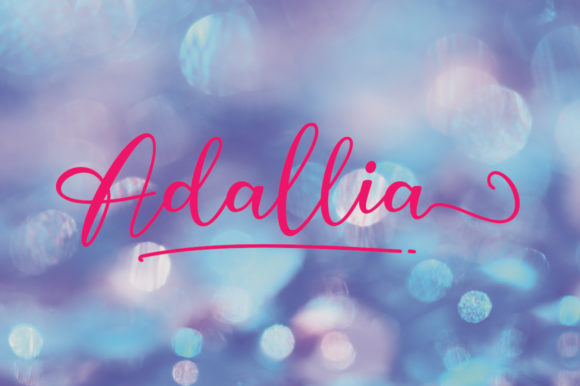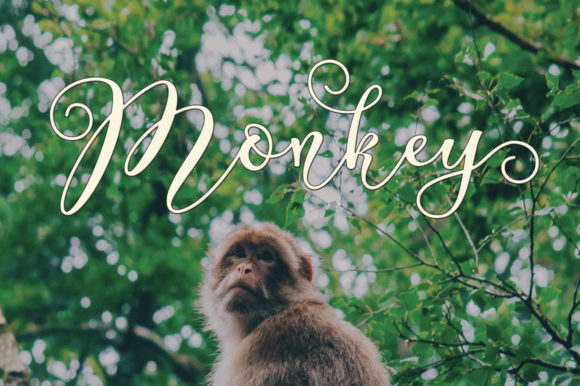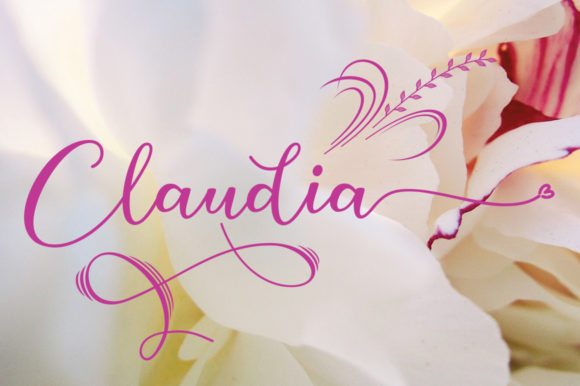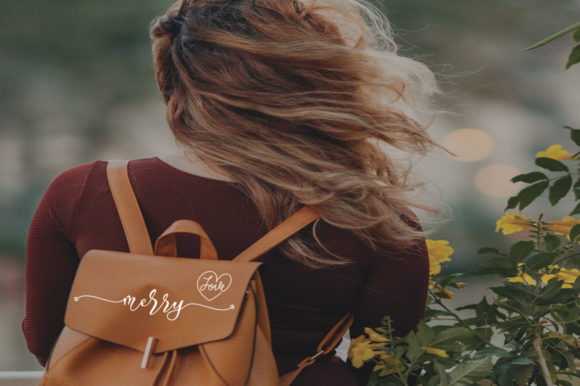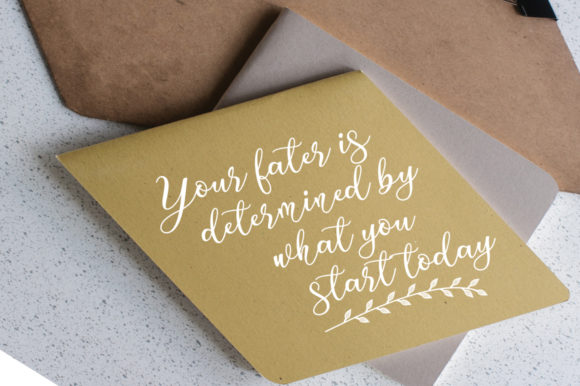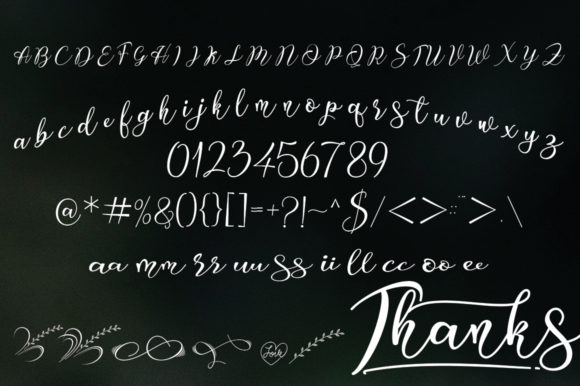
Discover the Elegance of Carolina Font: Modern Calligraphy at Its Finest
In the world of typography, few fonts manage to strike a balance between elegance and authenticity as effortlessly as Carolina Font. This stunning script is a masterpiece of modern calligraphy, offering a sophisticated and genuine aesthetic that elevates any design or craft project. Whether you’re a seasoned designer or a crafter looking to add a touch of refinement to your work, Carolina Font is an exceptional addition to your library.
The Beauty of Carolina Font
Carolina Font is a visual treat, boasting a beautiful, flowing script that exudes elegance and poise. Its intricate details and smooth lines make it perfect for a wide range of applications, from wedding invitations and stationery to branding and packaging. The font’s modern calligraphy style gives it a fresh and contemporary feel, while its classic undertones ensure it remains timeless and versatile.
One of the standout features of Carolina Font is its PUA (Private Use Area) encoding. This means that accessing the font’s extensive range of glyphs and swashes is incredibly straightforward. With PUA encoding, you can easily navigate the font’s various characters and decorative elements, allowing you to add unique touches to your designs without hassle. This feature makes Carolina Font not only beautiful but also highly functional and user-friendly.
Special Features for Endless Creativity
Carolina Font is packed with special features that give you the tools to create truly unique and captivating designs. Some of its notable features include:
• Alternate Glyphs: These provide variations of standard characters, enabling you to customize your text and add personality to your designs.
• Ligatures: These special characters combine two or more letters into a single glyph, creating a seamless and fluid look that’s perfect for elegant scripts.
• Swashes: These decorative flourishes can be used to embellish your text, adding a touch of sophistication and flair.
The combination of these features, along with PUA encoding, makes Carolina Font an incredibly versatile tool for designers and crafters. Whether you’re creating bespoke wedding invitations, designing a brand’s logo, or crafting unique stationery, this font offers the flexibility and creativity you need.
Applications for Designers and Crafters
The applications for Carolina Font are vast and varied. Here are a few ideas to get you started:
• Wedding and Event Stationery: Create stunning invitations, save-the-dates, and thank-you cards that set the tone for any celebration.
• Branding and Packaging: Use Carolina Font to add a touch of elegance to logos, product labels, and packaging, helping brands stand out with a sophisticated look.
• Digital and Print Media: Enhance blog posts, social media graphics, and print materials with a font that adds both style and substance.
• Crafting Projects: From handmade cards and scrapbooking to DIY home decor, Carolina Font can add a professional and polished finish to any craft project.
Carolina Font represents the pinnacle of modern calligraphy, offering a perfect blend of elegance, authenticity, and functionality. Its PUA encoding, along with a wealth of special features like alternate glyphs and ligatures, makes it an indispensable tool for designers and crafters alike. Whether you’re looking to elevate your professional designs or add a touch of sophistication to your crafting projects, Carolina Font is sure to exceed your expectations. With its versatility and beauty, it’s an investment that will undoubtedly enhance your creative work for years to come.